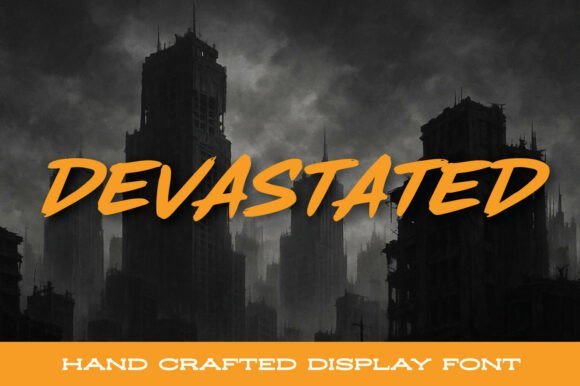
When Words Need to Shout
We’ve all been there – staring at a blank canvas, waiting for the perfect font to bring our ideas to life. But what happens when your message needs to scream, to grab attention, and to evoke emotions? That’s where the Devastated Font comes in – a bold, hand-painted brush font that’s bursting with raw energy and rough attitude.
This font is more than just a design element; it’s a way to convey urgency, drama, and emotion. With its uneven strokes, jagged edges, and natural wobble, every character in the Devastated Font feels authentic and imperfect – like it was written in a rush with a thick paint marker. Whether you’re creating posters, sports graphics, or street-style branding, this font delivers loud personality without losing legibility.
For designers, the Devastated Font is a valuable asset – a go-to choice for making bold statements and impactful headlines that leave a lasting impression.
Devastated Font Key Features
- Font Family: Devastated Font is a sans-serif font family designed for digital use.
- Size: The font family includes 6 font weights (Thin, Light, Regular, Medium, Bold, and Black) for versatile use in different design contexts.
- Unique Characteristics: Devastated Font features a distressed, weathered aesthetic with subtle texture and rough edges, giving it a worn, vintage look.
Designer Review: Devastated Font
When I first laid eyes on the Devastated Font, I was struck by its unique aesthetic ✨. The distressed, vintage look is perfect for adding a touch of nostalgia to any design project. The font’s irregularities and imperfections give it a handmade feel that’s hard to replicate with more polished fonts.
- The font’s range of weights and styles offers a lot of flexibility for designers ✨. From the lightest, most delicate versions to the boldest, most dramatic ones, there’s a Devastated Font style to suit any design need.
- The font’s unique character set includes a range of accented characters, making it a great choice for designers who need to work with languages other than English ✨.
However, there are a few limitations to consider ⚠️. The font’s irregularities can sometimes make it difficult to read, particularly in smaller sizes. Additionally, the font’s vintage aesthetic may not be to every designer’s taste.
Overall, I’d give the Devastated Font a solid 4 out of 5 stars. While it may not be the best choice for every design project, it’s a unique and versatile font that’s sure to add some visual interest to any design. With a little bit of careful design and layout, the Devastated Font can be a real showstopper ✨.
Tips for Getting the Most Out of Devastated Font
Use Devastated Font to add a touch of elegance and sophistication to your designs.
Pair it with bold, contrasting colors to create a striking visual effect.
Experiment with different font sizes and styles to create a unique and eye-catching look.
Use Devastated Font for:
- Luxury branding and packaging
- High-end event promotions
Alternatives to Devastated Font
Bad Script
Bad Script is a distressed, handwritten font suitable for use in posters, flyers, and social media graphics. It’s ideal for creating a sense of urgency or nostalgia. Bad Script is more dramatic and attention-grabbing compared to Devastated Font, making it a better choice for bold statements.
Unibolt
Unibolt is a geometric sans-serif font with a distressed, industrial feel. It’s suitable for use in titles, headings, and logos. Unibolt is more modern and versatile compared to Devastated Font, making it a better choice for designs that require a mix of edginess and sophistication.
Chango
Chango is a distressed, sans-serif font with a rough, worn look. It’s suitable for use in titles, headings, and body text. Chango is more subtle and understated compared to Devastated Font, making it a better choice for designs that require a touch of grit without overwhelming the viewer.
Q: Can I customize the Devastated Font family?